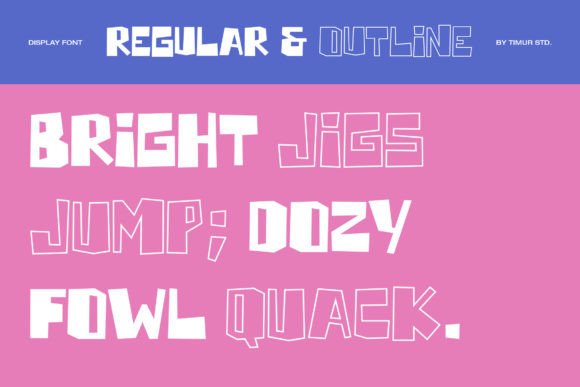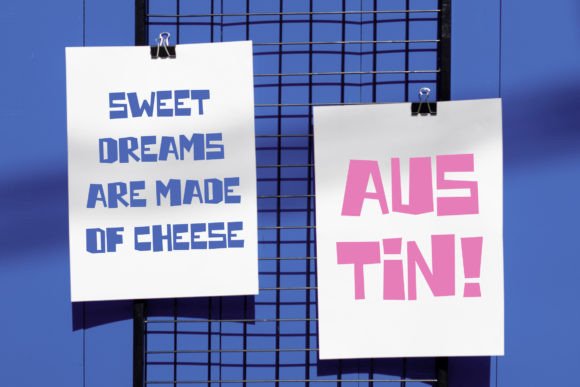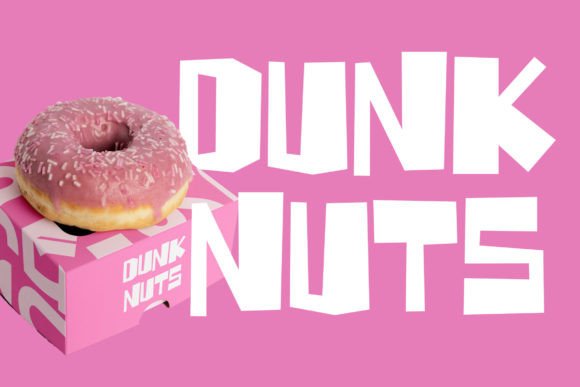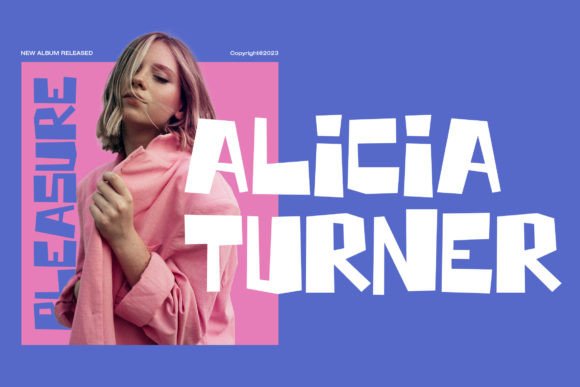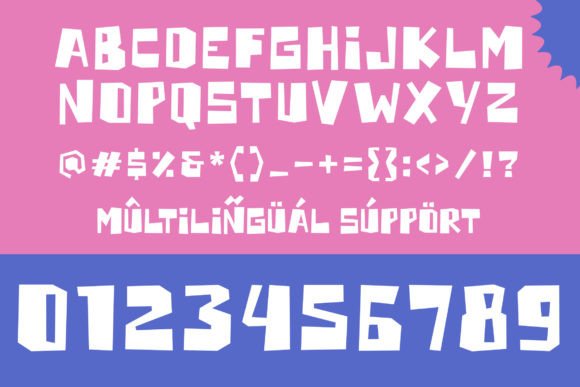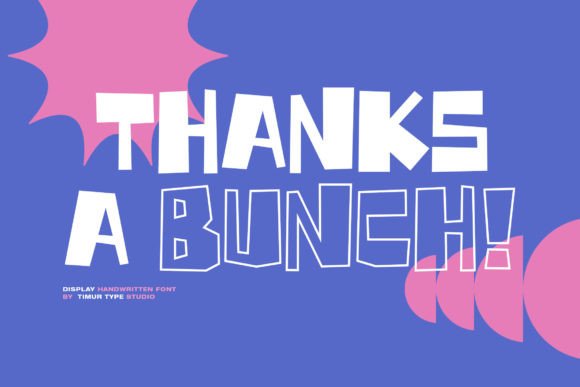
Introduction to Horizone Font
As designers, we’ve all been there – staring at a blank canvas, trying to bring our creative vision to life. But sometimes, it’s the smallest details that make all the difference. That’s where the Horizone Font comes in – a high-quality, versatile font that adds a touch of elegance to any design.
With its unique style and shape, the Horizone Font is perfect for crafting captivating titles, logos, and more. Whether you’re working on a free download project or a paid design resource, this font is sure to elevate your designs and leave a lasting impression. And the best part? It’s available for free download, making it an accessible design resource for creatives of all levels.
Key Features of Horizone Font
- High-quality design for creative projects with a modern and futuristic feel.
- Unique characteristics include its geometric and abstract design elements, adding a touch of sophistication to any creative project.
- Perfect for use in graphic design, digital art, and typography projects that require a unique and eye-catching font.
Honest Review: Horizone Font
I recently had the chance to work with the Horizone Font, and I must say it’s been a great addition to my design toolkit. The high-quality design of this font makes it perfect for any creative project that requires a modern and sleek look.
Here are some things that work well with the Horizone Font:
- Modern and sleek design
- High-quality typography
- Not ideal for traditional or serif-based designs
- May require some adjustments for optimal readability
Overall, I’m impressed with the Horizone Font. It’s a solid choice for designers looking for a modern and high-quality font for their creative projects. Just be aware of its limitations and adjust your design accordingly.
Tips for Getting the Most Out of Horizone Font
To get the most out of Horizone Font, use it on a transparent background to create a sleek and modern design. You can also experiment with different font sizes and colors to create a unique look.
The Horizone Font is perfect for creative projects such as:
- Brochure design
- Poster design